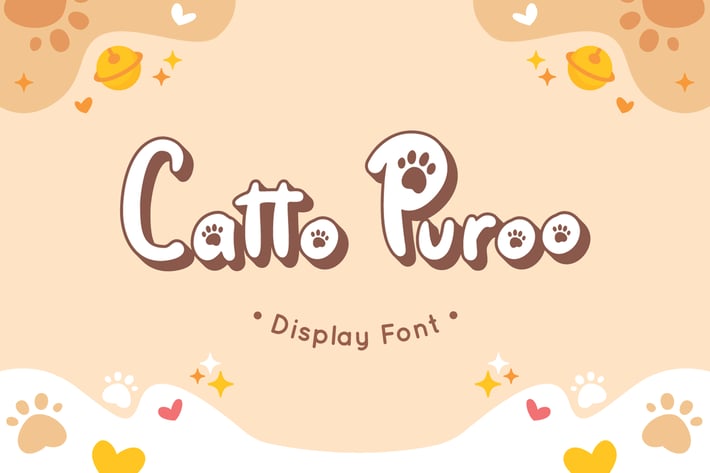
Catto Puroo - Display Font
Introducing Catto Puroo, the perfect font for all animal-related products.
With three different versions - regular, display, and extruded - Catto Puroo offers versatility and a range of design possibilities.
The display version features a paw print on the font, which is perfect for creating fun and playful designs.
Combine it with the extruded version for a 3D look that will make your designs stand out.
Catto Puroo is the go-to font for animal lovers, pet enthusiasts, and anyone looking to create designs that are fun, quirky, and memorable.